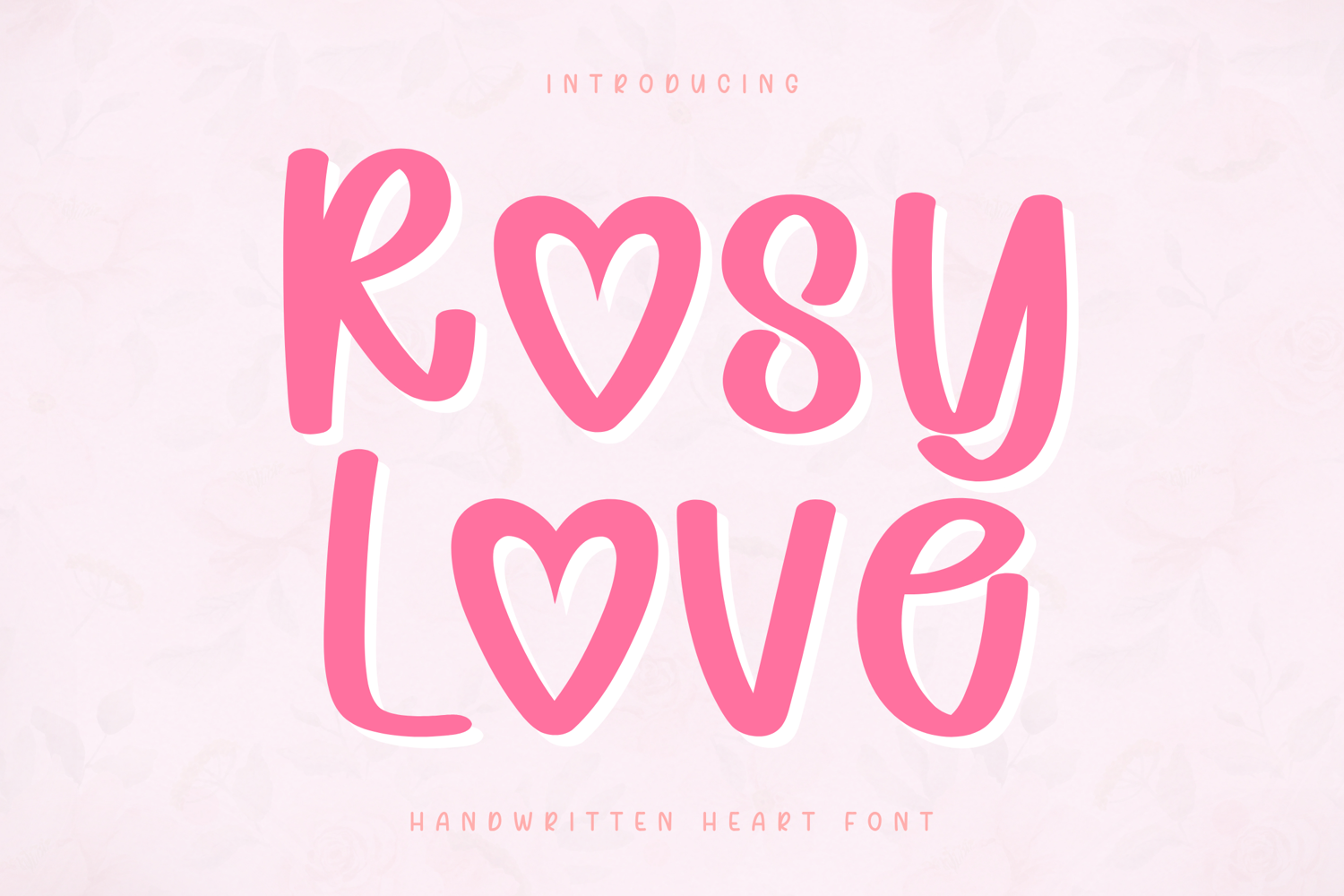
Rosy Love - Handwritten Font
Rosy Love – Handwritten Heart Font
Rosy Love is a bold and playful handwritten font designed with charming heart-shaped details that instantly bring a sweet and romantic feel to your designs. Featuring smooth curves, rounded letterforms, and eye-catching heart accents, this font creates a fun and expressive handwritten style.
With its strong visual presence and clean structure, Rosy Love is perfect for projects that need to stand out while still feeling soft and friendly. It works beautifully for Cricut designs, Valentine-themed products, stickers, and cute merchandise, while maintaining excellent readability.
Rosy Love is designed with bold, smooth strokes and decorative heart elements, making it perfect for fun, romantic, and high-impact designs.